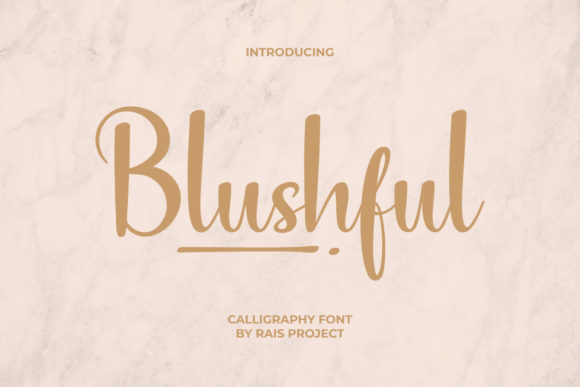
Behold the captivating Blushful script font, a masterpiece crafted for those seeking a touch of elegance and personality in their designs. Its graceful curves and delicate strokes evoke a sense of timeless beauty that will leave your creations with an unforgettable charm.
With Blushful, you can effortlessly add a touch of refinement to your logos, branding, and social media graphics. Its enchanting appearance is sure to make your designs stand out from the crowd, leaving a lasting impression on your audience.
Embrace the art of handwritten typography with Blushful, and elevate your designs to new heights. Its wide range of glyphs and swashes, easily accessible through PUA encoding, provides endless creative possibilities that will transform your projects into works of art.
Immerse yourself in the world of Blushful and discover the endless possibilities it holds. Whether you're a seasoned designer or just starting out, this font will become an indispensable tool in your creative arsenal. Unleash your imagination and let Blushful guide you to design greatness.